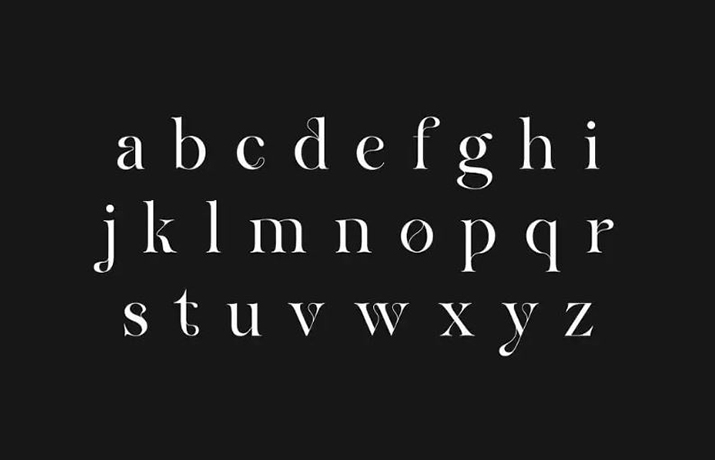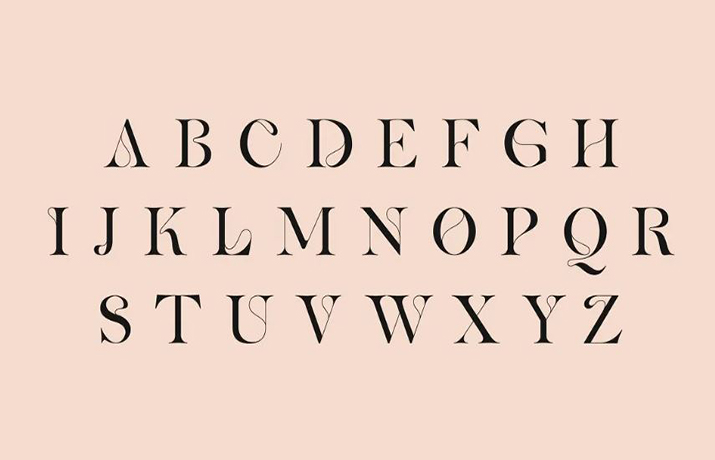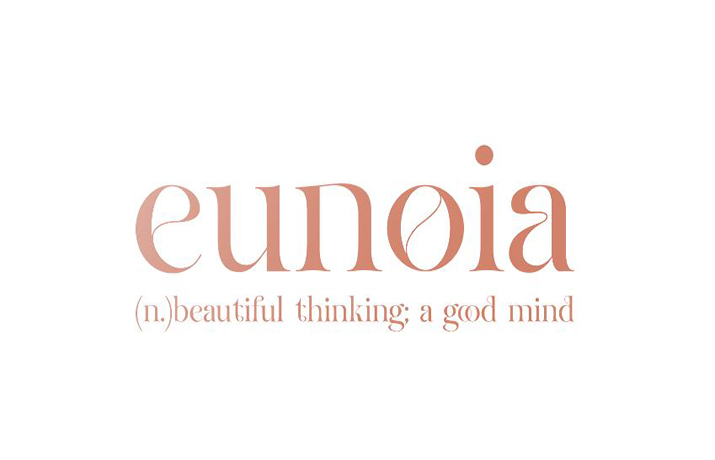
Eunoia Font is a classic and playful serif typeface that makes a killer combination for every design project. It is great for logos, posters, and editorials.
It was designed and shared by Husain Assyahid that has been a graphic designer specializing in font since 2018.
It is built in a unique way in which you will see that the designer adds solid strokes with a sharp appearance. That’s why it maintains a strong depth across the entire typeface.
And available in a single weight that comes with full uppercase, lowercase, numbers, and punctuation + Multilanguage support.
Style:Serif, Display, Fancy
The font is most commonly used for the band’s album artwork. However, it can also be used for other purposes, such as creating t-shirts, posters, business cards, t-shirts, labels, and websites.